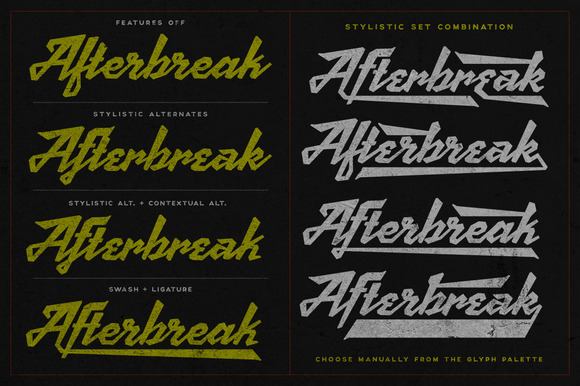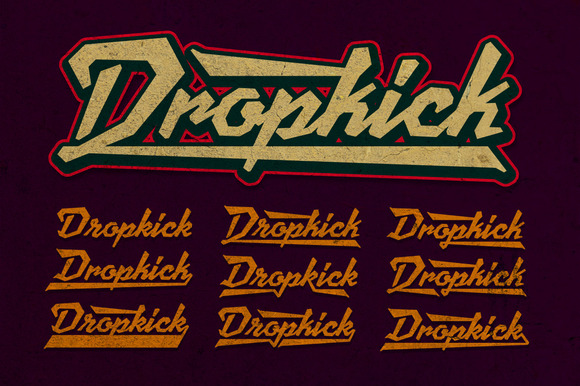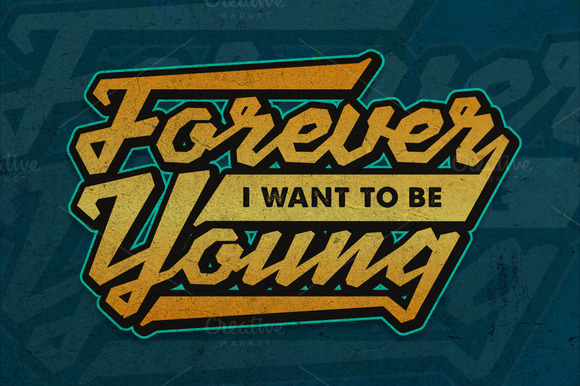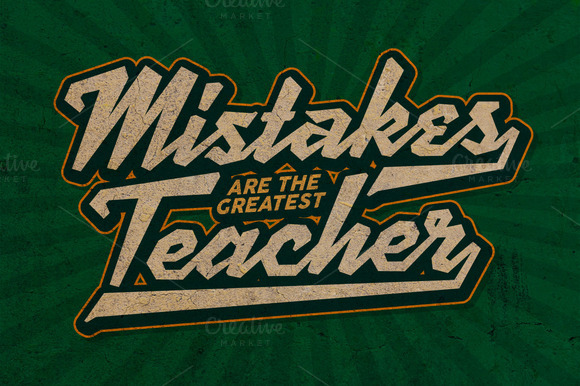
Introduction to Scriptonite Font
Remember the moment when you stumbled upon the perfect font for your design project? The moment when everything came together, and your creative vision finally took shape? For designers, that moment is priceless. And, trust us, you’re about to discover a game-changer in the world of typography – the Scriptonite Font.
With its rugged, curve-less design inspired by the iconic ‘S’ Superman logo, the Scriptonite Font is a true showstopper. This high-quality, unique typeface is perfect for designers who crave a strong, masculine look for their creative projects. Whether you’re working on a branding campaign, designing a business card, or creating a promotional graphic, the Scriptonite Font is an exceptional design resource that will elevate your work to new heights.
Key Features of Scriptonite Font
- High-quality, hand-drawn design perfect for creative projects and design resources.
- Includes 5 font styles and 2 sets of alternates for added versatility.
- Unique characteristics include elegant, cursive script and a range of flourishes and ornaments.
Honest Review: Scriptonite Font
As a designer, I’m always on the lookout for high-quality fonts that can elevate my creative projects. Recently, I had the chance to try out the Scriptonite Font, and I’m excited to share my honest review.
- The Scriptonite Font is incredibly versatile, making it perfect for a wide range of design projects.
- The font’s unique, cursive script style adds a touch of elegance and sophistication to any design.
- The font may not be suitable for projects requiring a bold, sans-serif font style.
- The Scriptonite Font may not be the best choice for projects requiring a high level of customization.
Overall, I’m impressed with the Scriptonite Font’s high quality and versatility. While it may not be the perfect fit for every design project, it’s definitely a valuable resource to have in your design arsenal.
To get the most out of the Scriptonite Font, experiment with different font sizes, colors, and combinations. You can also use it in conjunction with other design resources to create unique and eye-catching designs.
The Scriptonite Font is perfect for a variety of creative projects, including wedding invitations, business cards, and social media graphics. Its high quality and versatility make it a valuable design resource for professionals and hobbyists alike.